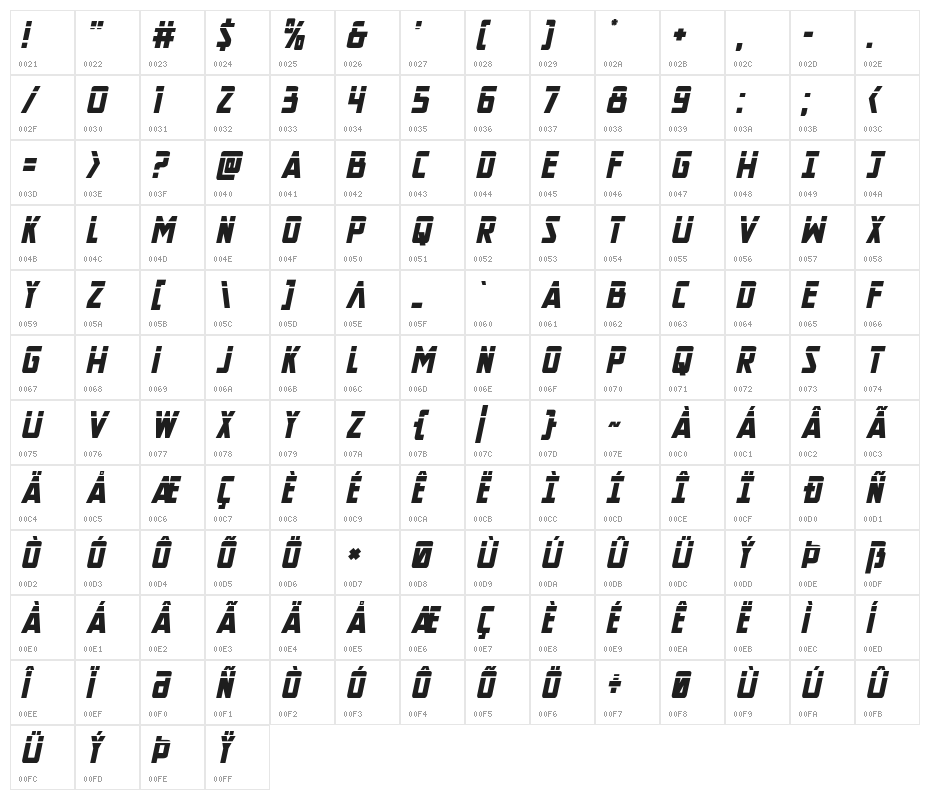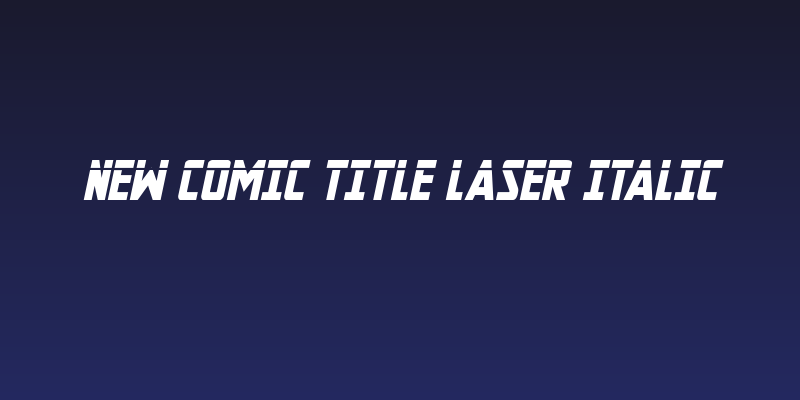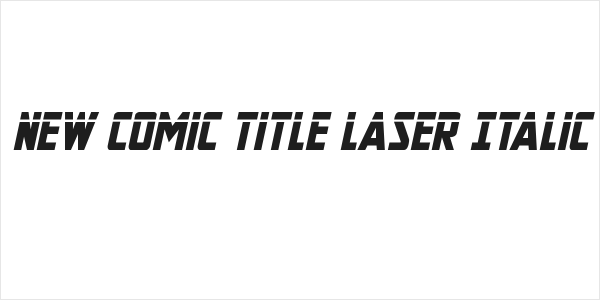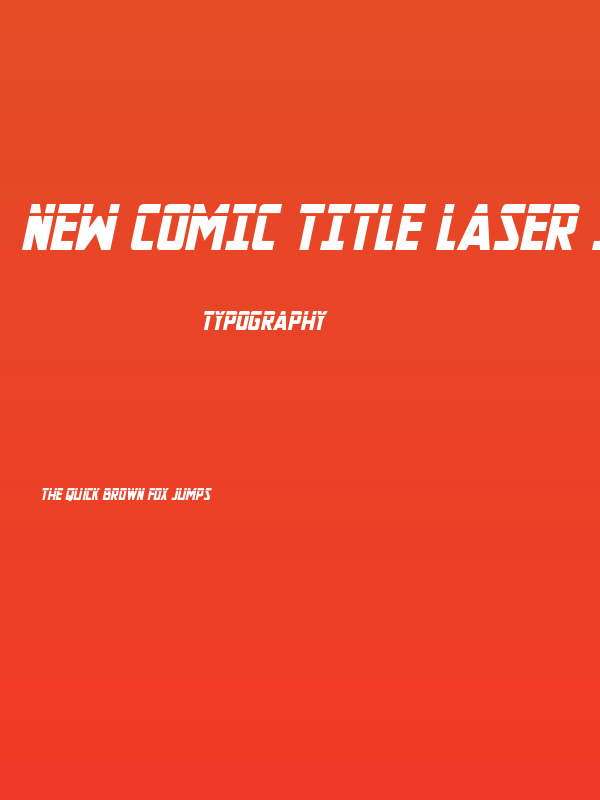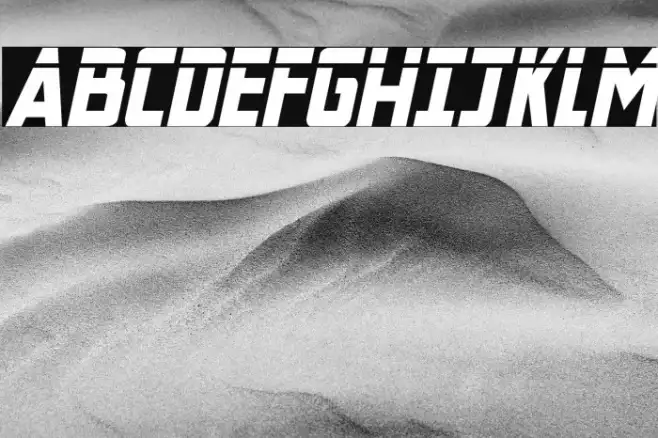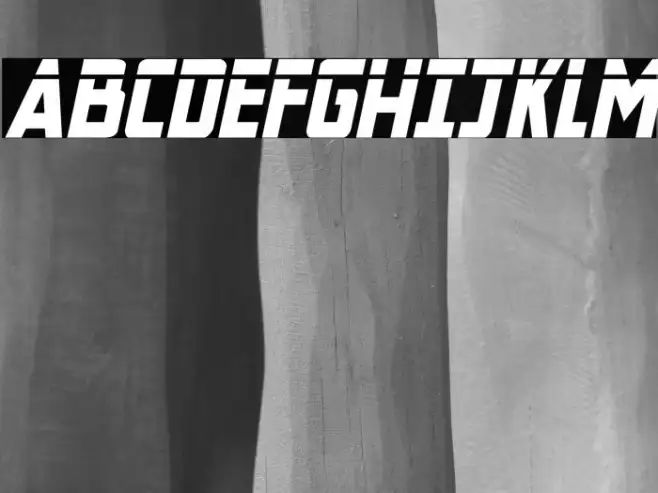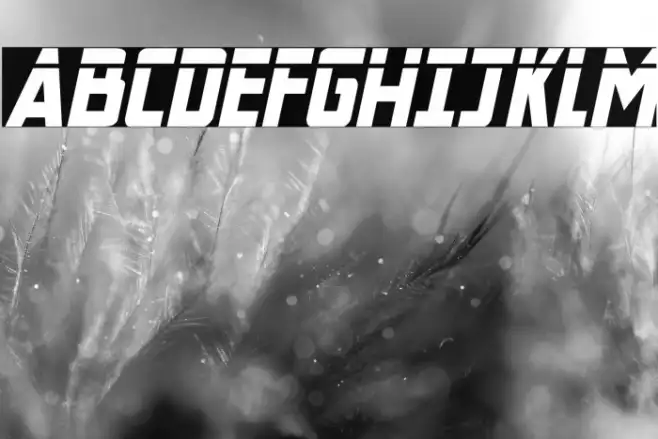
New Comic Title Laser Italic Font
New Comic Title Laser Italic Description
This font features a bold, italicized style with a futuristic and dynamic appearance. The characters are sharply angled, giving a sense of speed and movement. The uppercase letters are prominent, with a consistent slant that adds to the energetic feel. The lowercase letters maintain the same angular design, ensuring uniformity across the typeface. Numbers and special characters are designed to match the overall aesthetic, making the font versatile for various uses. The bold strokes and italic slant make it ideal for attention-grabbing headlines or titles.
| Overall Style | Futuristic, Dynamic |
| Proposed Projects | Ideal for comic book titles, video game graphics, sci-fi movie posters, and branding for tech companies. |